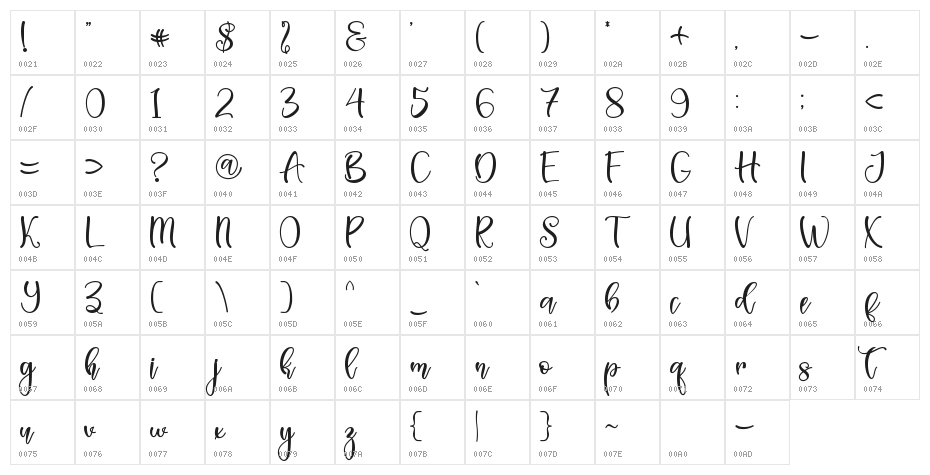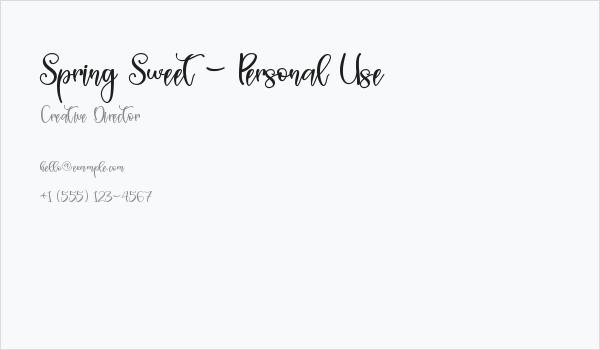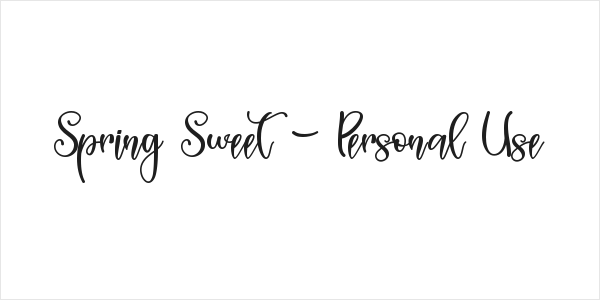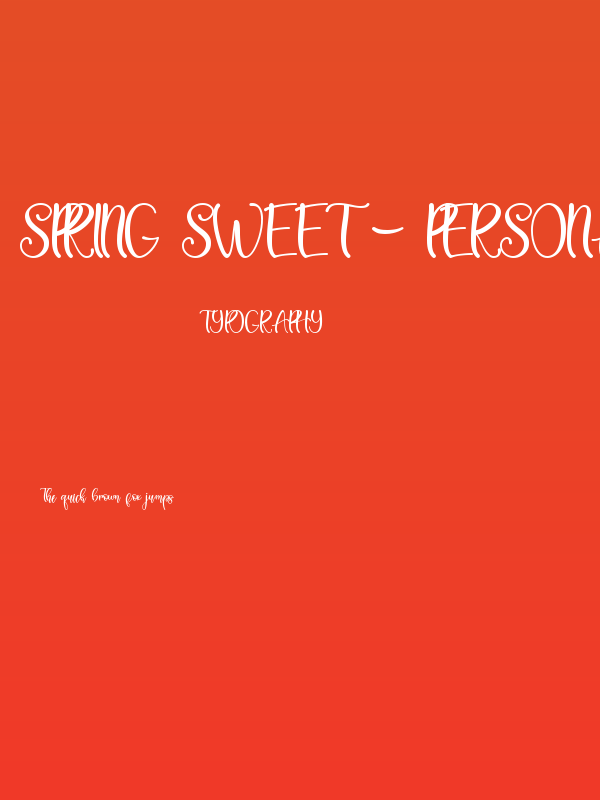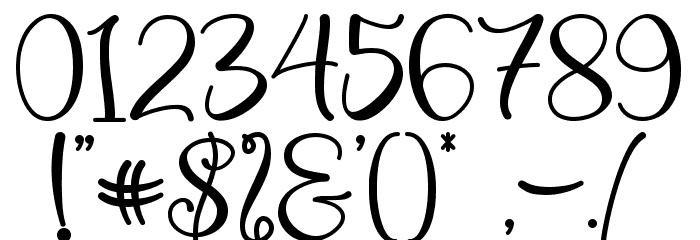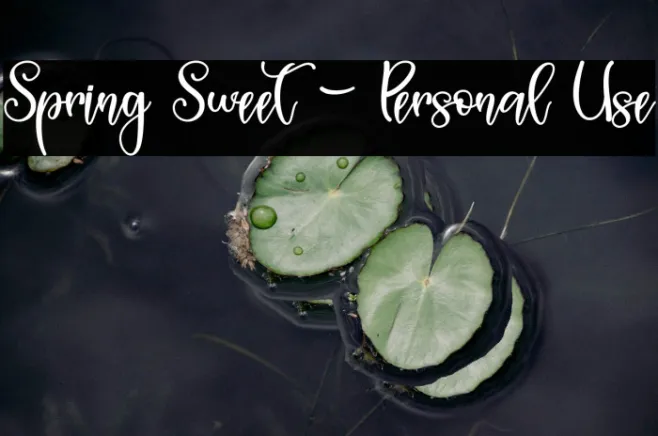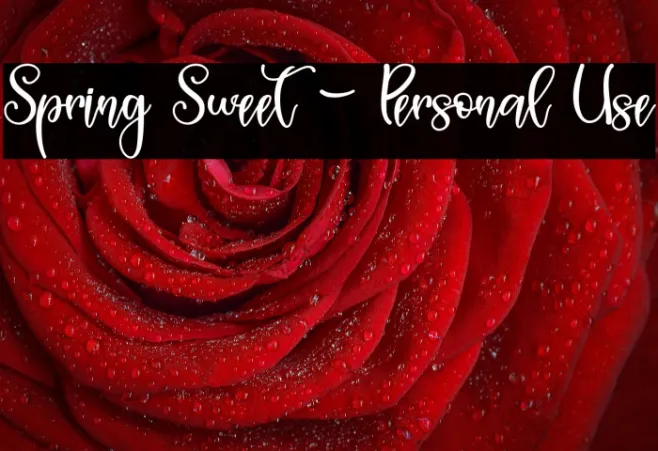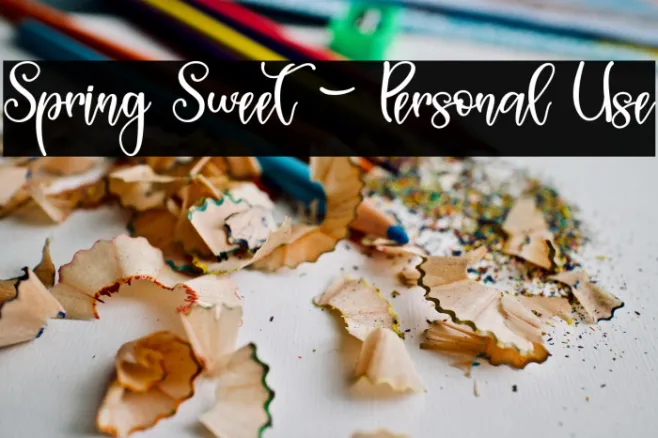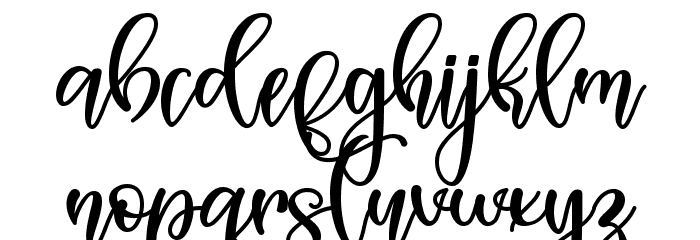
Spring Sweet - Personal Use Font
Spring Sweet - Personal Use Description
This font features a playful and elegant script style with a handwritten touch. The uppercase letters are bold and sweeping, with a consistent flow that adds a sense of movement and grace. The lowercase letters are equally fluid, with some characters featuring charming loops and swirls that enhance its decorative appeal. The numerals are clear and maintain the same playful style, making them easily readable. Special characters are creatively designed, fitting seamlessly with the overall aesthetic. This font exudes a sense of whimsy and sophistication, perfect for projects that require a personal and artistic touch.